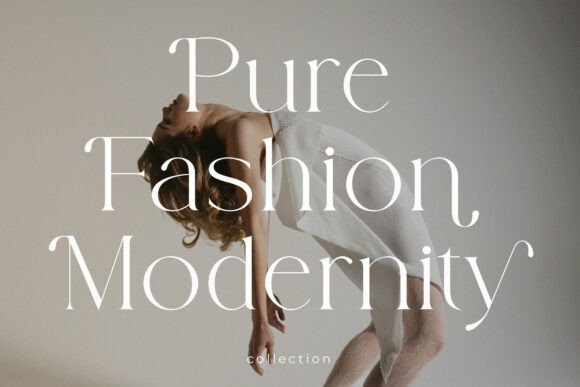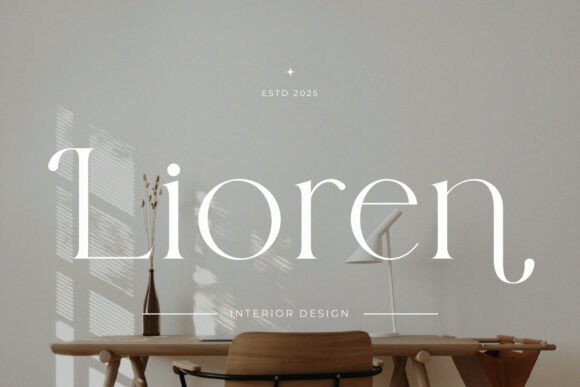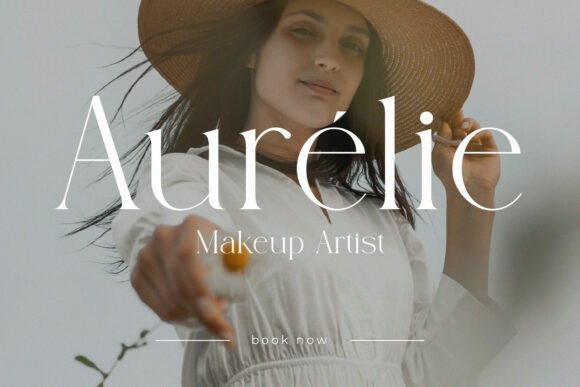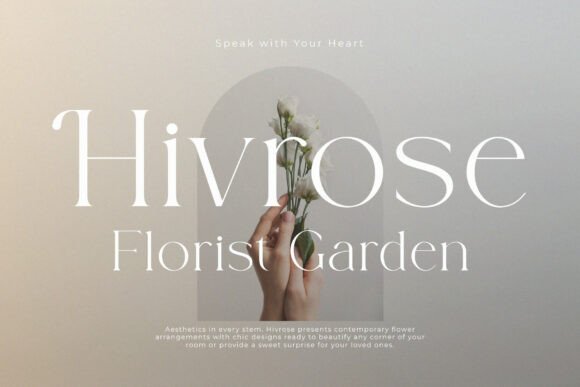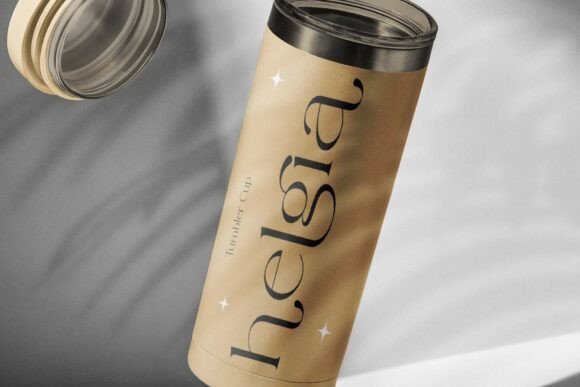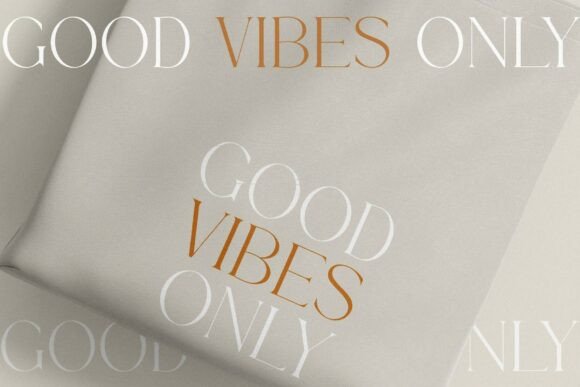
Introduction to Magite Font
As a designer, there’s nothing quite like the thrill of discovering a new typeface that sparks inspiration for your creative project. For me, that moment came when I stumbled upon Magite Font – a stunning display serif that embodies the perfect blend of timeless elegance and modern sophistication. The moment I laid eyes on its high-contrast letterforms, I knew I had found a valuable addition to my design arsenal.
What sets Magite Font apart is its ability to effortlessly bridge the gap between classic editorial romance and contemporary minimalism. With its unique, teardrop-shaped terminals and sweeping descenders, this typeface is the epitome of high-quality design. Whether you’re working on a high-end lifestyle magazine, a boutique hospitality logo, or a serene-and-stately social media header, Magite Font is the perfect choice to elevate your design and leave a lasting impression.
Key Features of Magite Font
- Its unique, hand-drawn style sets it apart from other fonts, making it a standout design resource for creative projects.
Honest Review: Magite Font
As a designer, I’m always on the lookout for high-quality design resources that can elevate my creative projects. Recently, I had the chance to try out the Magite Font, and I must say it’s been a game-changer.
What works well: ✨ The Magite Font is incredibly versatile, making it perfect for a wide range of design applications. Its sleek and modern aesthetic adds a touch of sophistication to any project, from branding to digital art. I also appreciate the fact that it comes with a transparent background, which allows for seamless integration with other design elements.
What doesn’t work well: ⚠️ While the Magite Font is generally easy to use, I did encounter some issues with font rendering on certain platforms. This might be a deal-breaker for some designers, but overall, I think it’s a minor quibble.
Overall, I’m thoroughly impressed with the Magite Font. Its high-quality design and versatility make it a valuable addition to any designer’s toolkit. If you’re looking for a free download that can take your creative projects to the next level, I highly recommend giving the Magite Font a try.
Tips for Getting the Most Out of Magite Font
For the best results, use the Magite Font on a transparent background to create a clean and modern look. You can also pair it with other design resources to create a unique and eye-catching design.
The Magite Font is perfect for creative projects such as logo designs, business cards, and brochures. Its high-quality design makes it an ideal choice for designers looking for a free download with a transparent background.